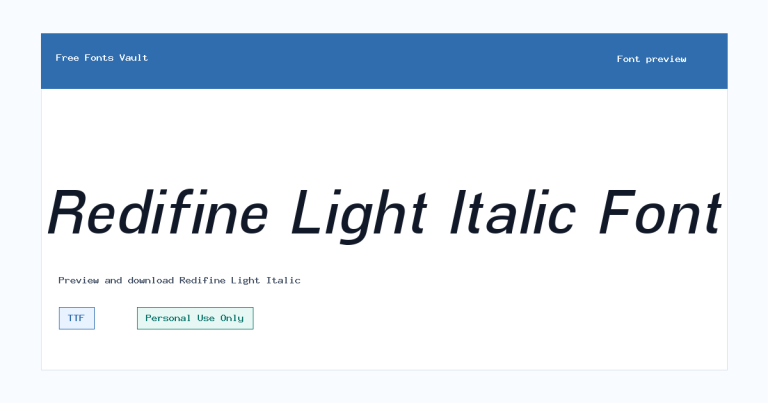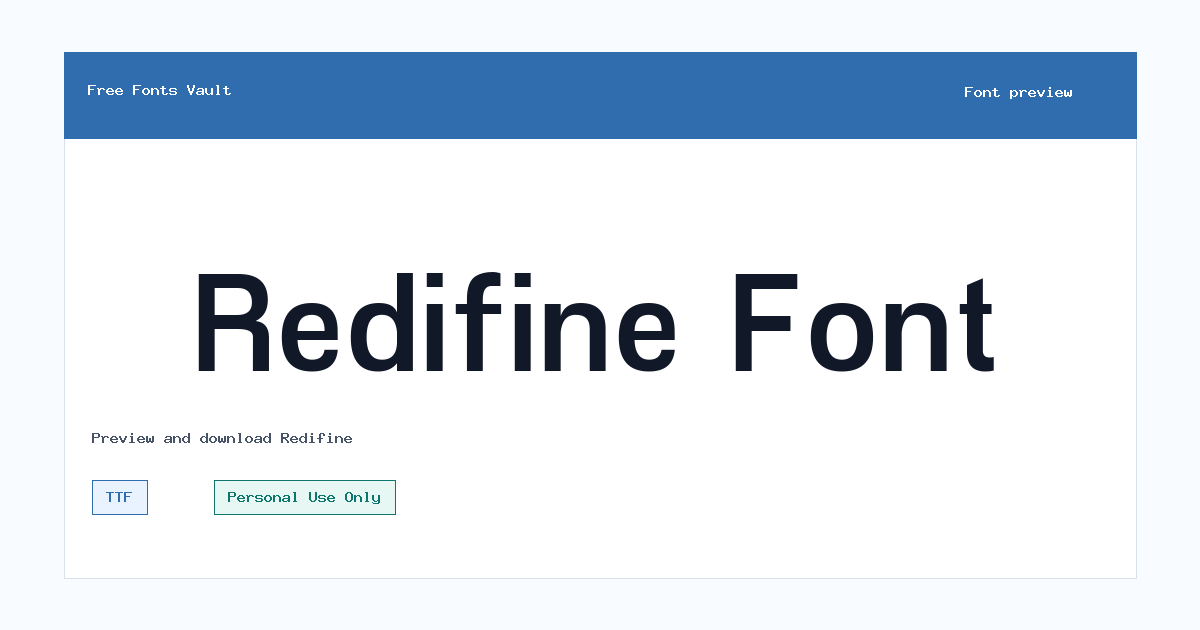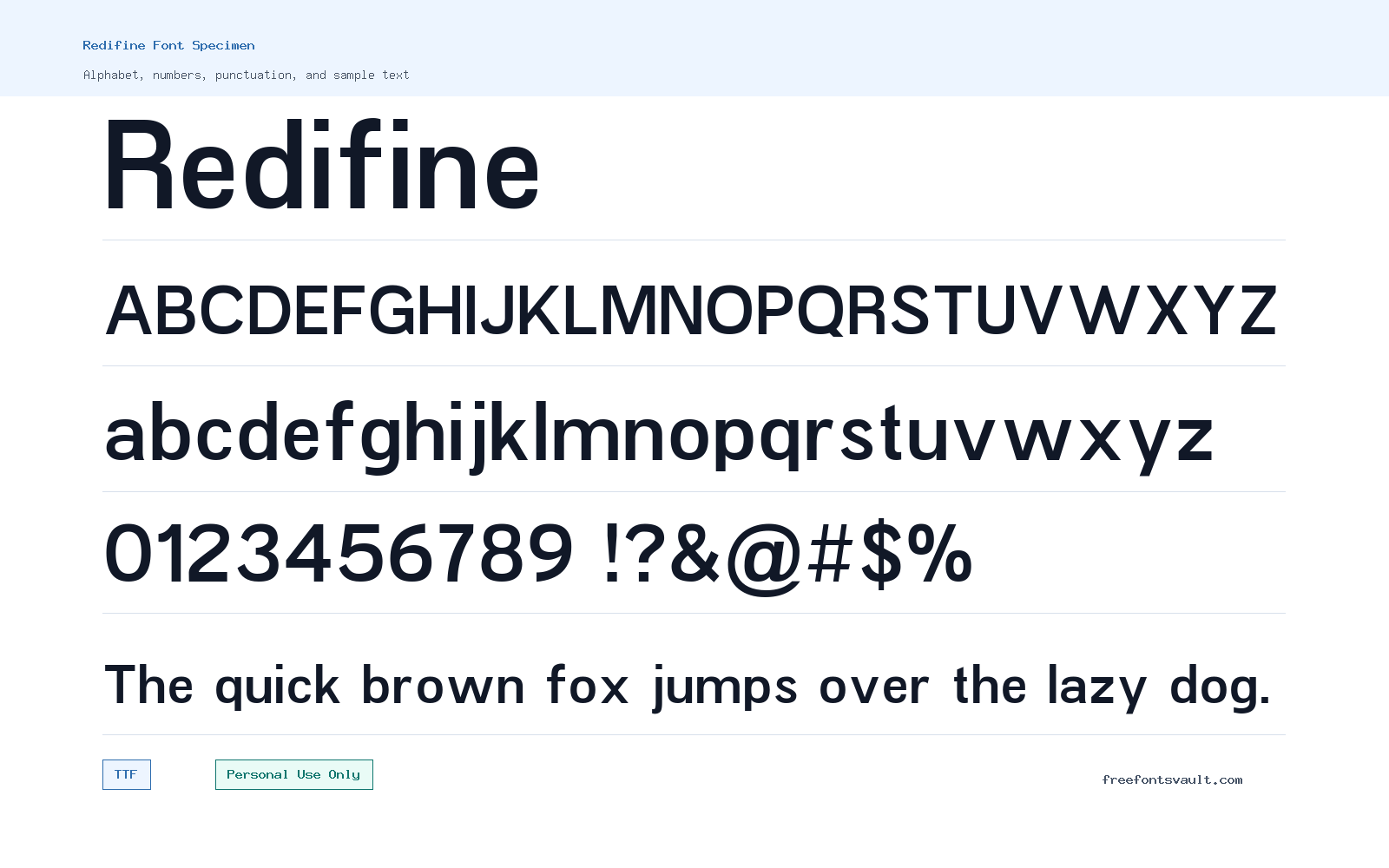
Redifine
- Designer Muhamad Fikry Nuralif
- Foundry Fikryal Studio
Redifine is a clean modern sans serif font family from Fikryal Studio. It is a good choice to test when you need simple, polished lettering for headings, brand mockups, posters, interface previews, or editorial-style layouts.
About Redifine
Redifine has the direct, orderly feel of a modern sans serif. Its structure is described by the maker and major font listings as clean, minimalist, readable, and suited to professional design work. That makes it more useful for clear visual systems than for decorative or highly expressive typography. If you are building a logo concept, a business card draft, a poster title, a website hero section, or a presentation cover, Redifine gives you a neutral starting point with enough weight contrast to create hierarchy. The family is shown by Fikryal Studio, MyFonts, and 1001 Fonts as a six-style family with Light, Light Italic, Regular, Italic, Bold, and Bold Italic. The download records for this font page contain four TTF files: Regular, Italic, Bold, and Bold Italic. Those styles cover the most common needs for headline and text contrast, even if the full retail family may offer lighter cuts as well.
For best results, preview Redifine with the exact words you plan to use. Modern sans serif fonts can look very different in short brand names, all-caps titles, long navigation labels, and paragraph text. Try the Regular style for clean body copy or interface labels, Bold for posters and section headings, and Italic or Bold Italic when you need emphasis without switching to a second family. Redifine can work well in web mockups because its forms are simple and not overly decorative, but always check small sizes before relying on it for dense text. For logo work, test spacing carefully, especially with short names, acronyms, and letters that create tight joins. For posters and social graphics, give the letters enough breathing room and avoid crowding the type with heavy textures or busy backgrounds.
Pairing Redifine is usually easiest when the other font has a different role. Use it with a readable serif for editorial layouts, a humanist sans for longer supporting text, or a restrained script only for small accents. Avoid pairing it with another very similar clean geometric sans unless you have a clear reason, because the two families may compete without adding contrast. If you are designing a brand presentation, try Redifine for the main name or section titles and keep secondary text in a simpler companion font. That keeps the overall layout clean while still giving your hierarchy enough separation.
- Clean modern sans serif style
- Full family is listed by external font marketplaces as six styles including Light and Light Italic
- Useful weight contrast for headings, emphasis, and simple hierarchy
- Presented by the maker for branding, editorial, UI/UX, marketing, and print or digital design
- Logo drafts and wordmark concepts for personal exploration
- Poster titles and event mockups
- Website hero text and UI layout previews
- Business card and stationery mockups
- Editorial headings and magazine-style layouts
- Presentation covers and clean title slides
- Brand identity concepts that need a simple sans serif voice
Redifine is credited to Fikryal Studio. The post data names Muhamad Fikry Nuralif as the designer, while MyFonts lists the designer as Muhammad Fikry.
Fikryal Studio, MyFonts, and 1001 Fonts list the full Redifine family as six styles: Light, Light Italic, Regular, Italic, Bold, and Bold Italic.
What kind of projects suit Redifine?
It suits clean headings, brand mockups, posters, editorial layouts, presentation covers, and UI previews where a modern sans serif style is needed.
What should I pair with Redifine?
Pair it with a readable serif for editorial contrast, a softer sans for longer text, or a small script accent. Avoid using another nearly identical modern sans unless the difference is intentional.